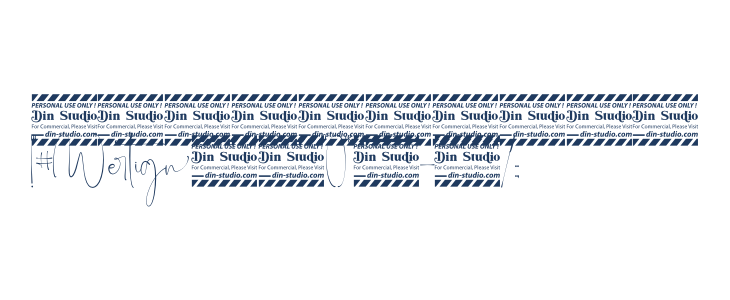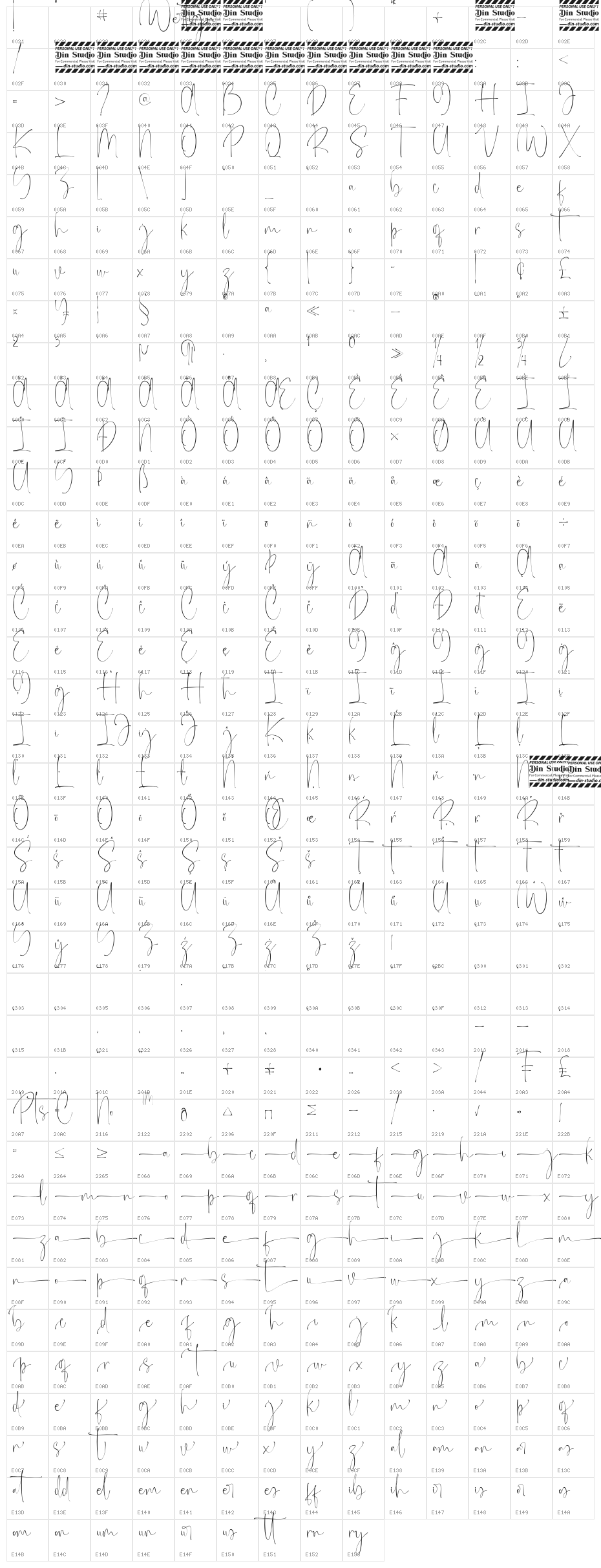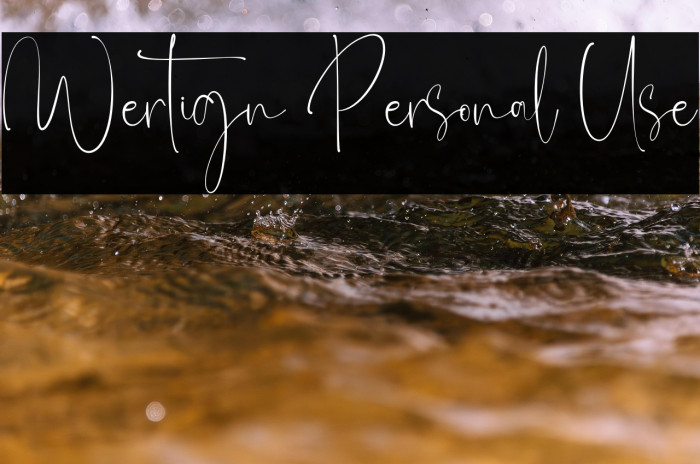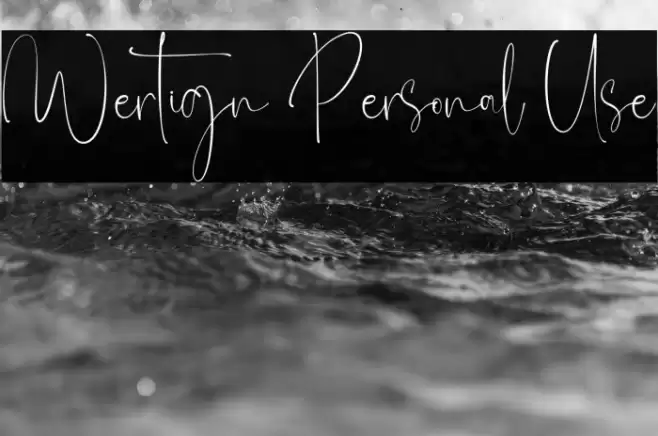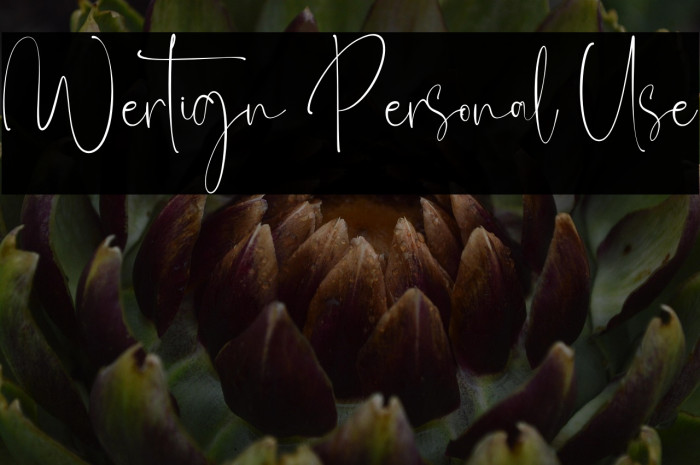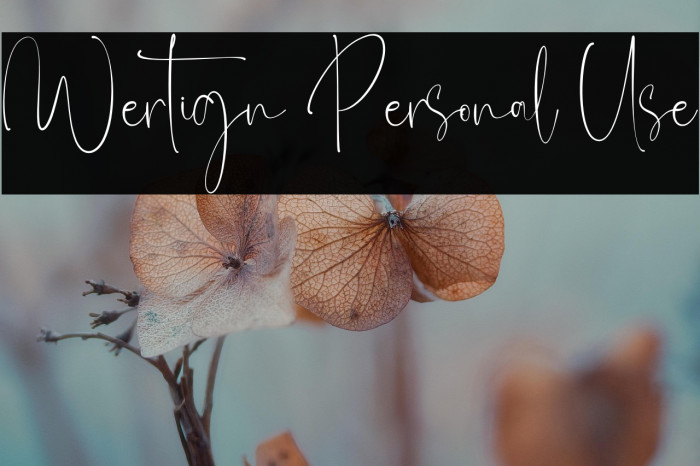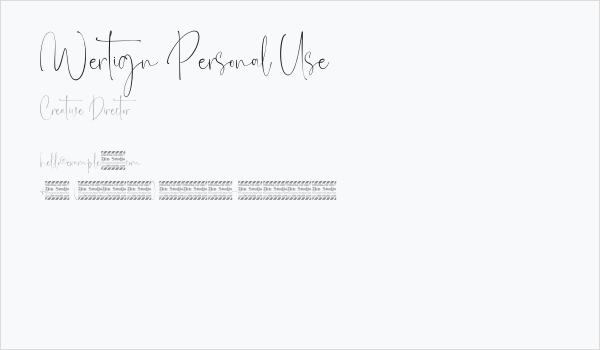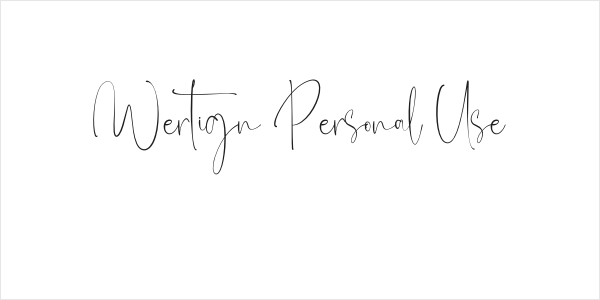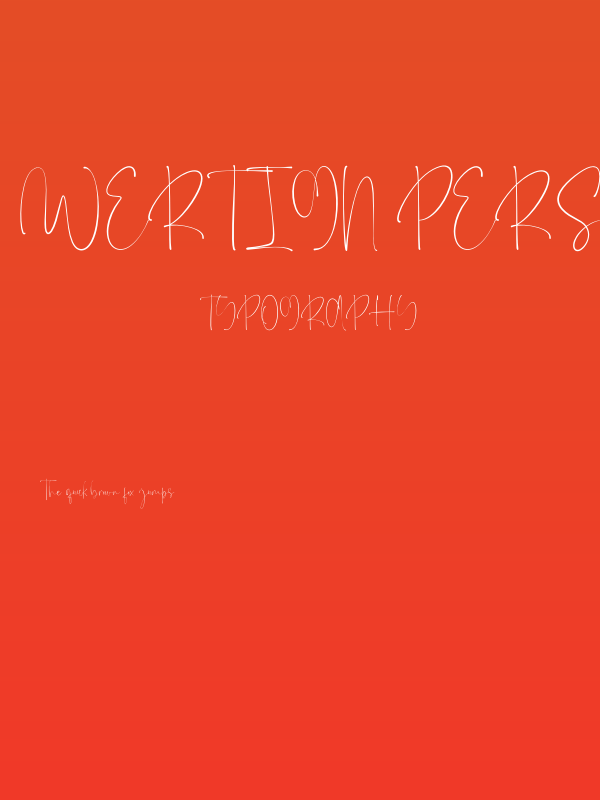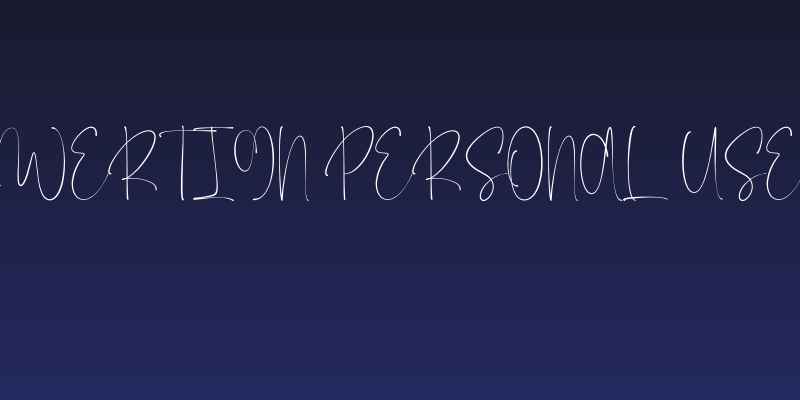
Wertign Personal Use Font
Wertign Personal Use Description
This font features a fluid, handwritten style with a modern and artistic flair. The characters are elegantly crafted with a natural flow, giving the appearance of being written with a fine-tipped pen. The uppercase letters are tall and slender, while the lowercase letters maintain a consistent, flowing baseline. The strokes vary in thickness, adding a dynamic and lively feel to the text. The font includes a full set of uppercase and lowercase letters, numbers, and a selection of special characters. Its unique style makes it suitable for creative and expressive projects.
Use CaseLogos, Headlines, Decorative text
Proposed ProjectsIdeal for invitations, greeting cards, branding, and social media graphics.